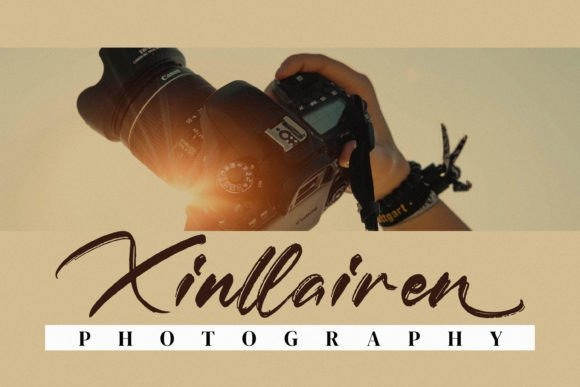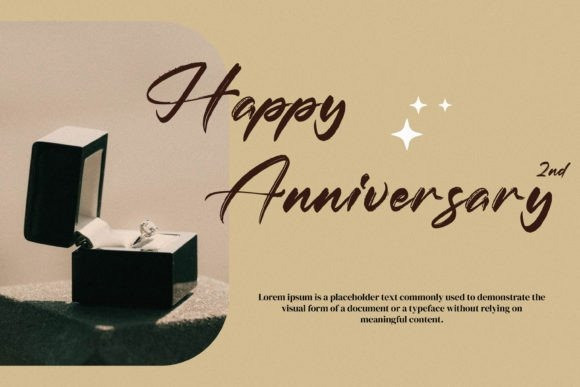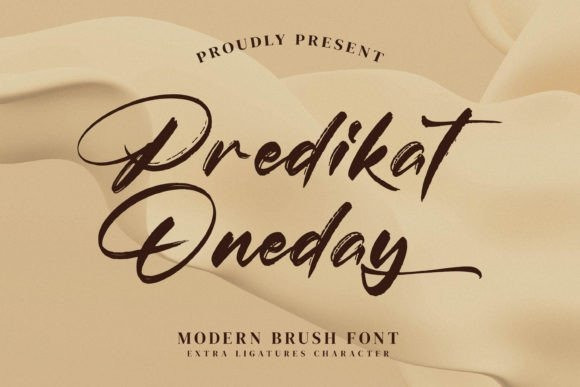
Predikat Oneday Font
Predikat Oneday Font is an exquisite handwritten font, masterfully designed to become a true favorite. It maintains its classy calligraphic influences while feeling contemporary and fresh. Fall in love with it and bring your projects to the highest levels!